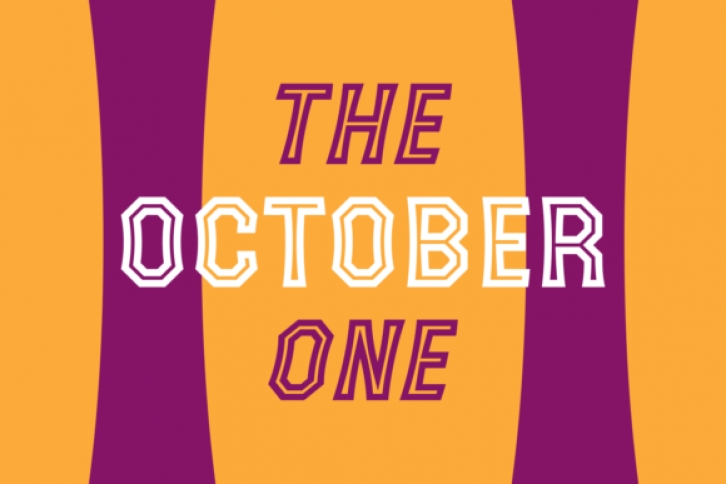
The October One is an unique display font. The double lines on each letter make it a striking typeface with a good readability. Its two styles; regular and Italic, give you the opportunity to keep creating beautiful unique designs.